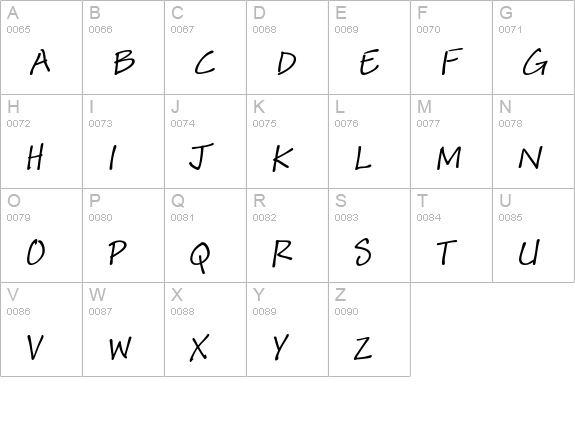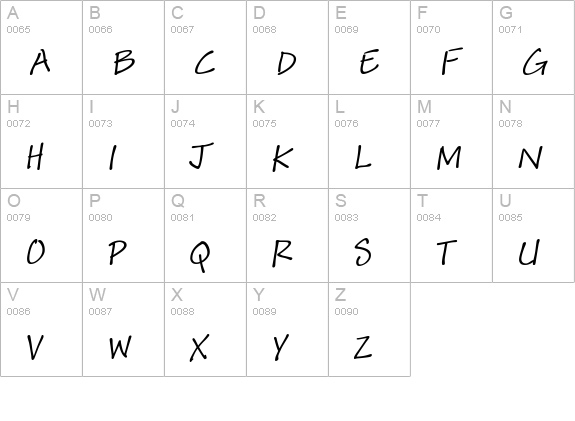
Andy Pro Italic Font Details
Andy Pro Italic is a distinctive, italic variant in the Andy typeface family \xE2\x80\x94 well suited to design and typography projects.
Introducing Andy Pro Italic font - a versatile and elegant typeface designed to bring a touch of sophistication to your projects. This stylish font features a sleek italic design that is both modern and timeless. Perfect for adding a touch of flair to your designs, Andy Pro Italic font is ideal for a wide range of applications, from branding and advertising to editorial and web design.